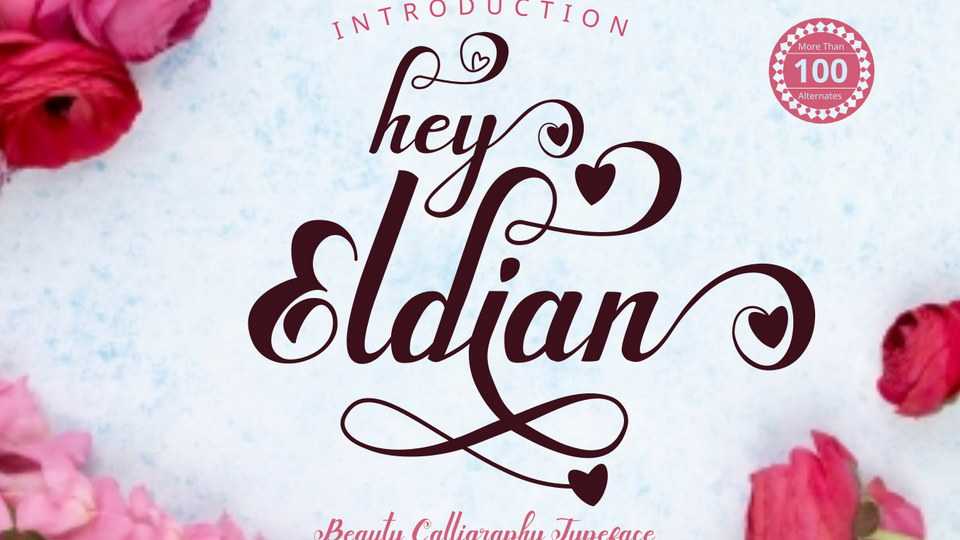
Download Hey Eldian font, an exquisite handwritten typeface, masterfully designed to become a true favorite. It maintains its classy calligraphic influences while feeling contemporary and fresh.